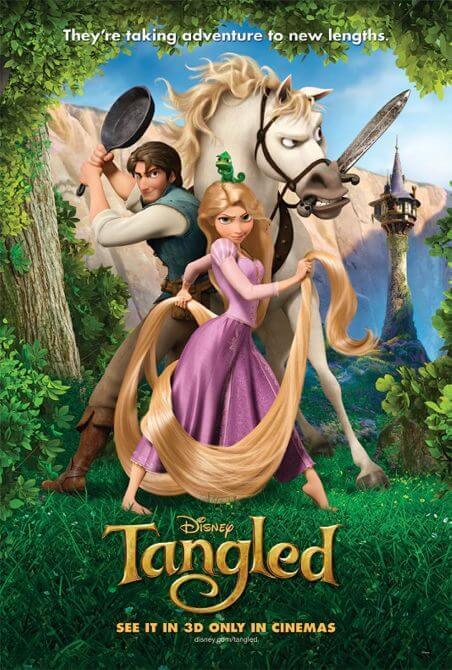
Tangled Font
Tangled is produced by Walt Disney Animation Studios in 2010 as a animated film base on a princess with magical long hair who has been capature in a tower, she embarks on a journey to self-discovery and love . She runaway with thief and change life with help of thief. The font is available in all caps, licenced as free for personal use and is free to download. Click the above link to download Tangled font.